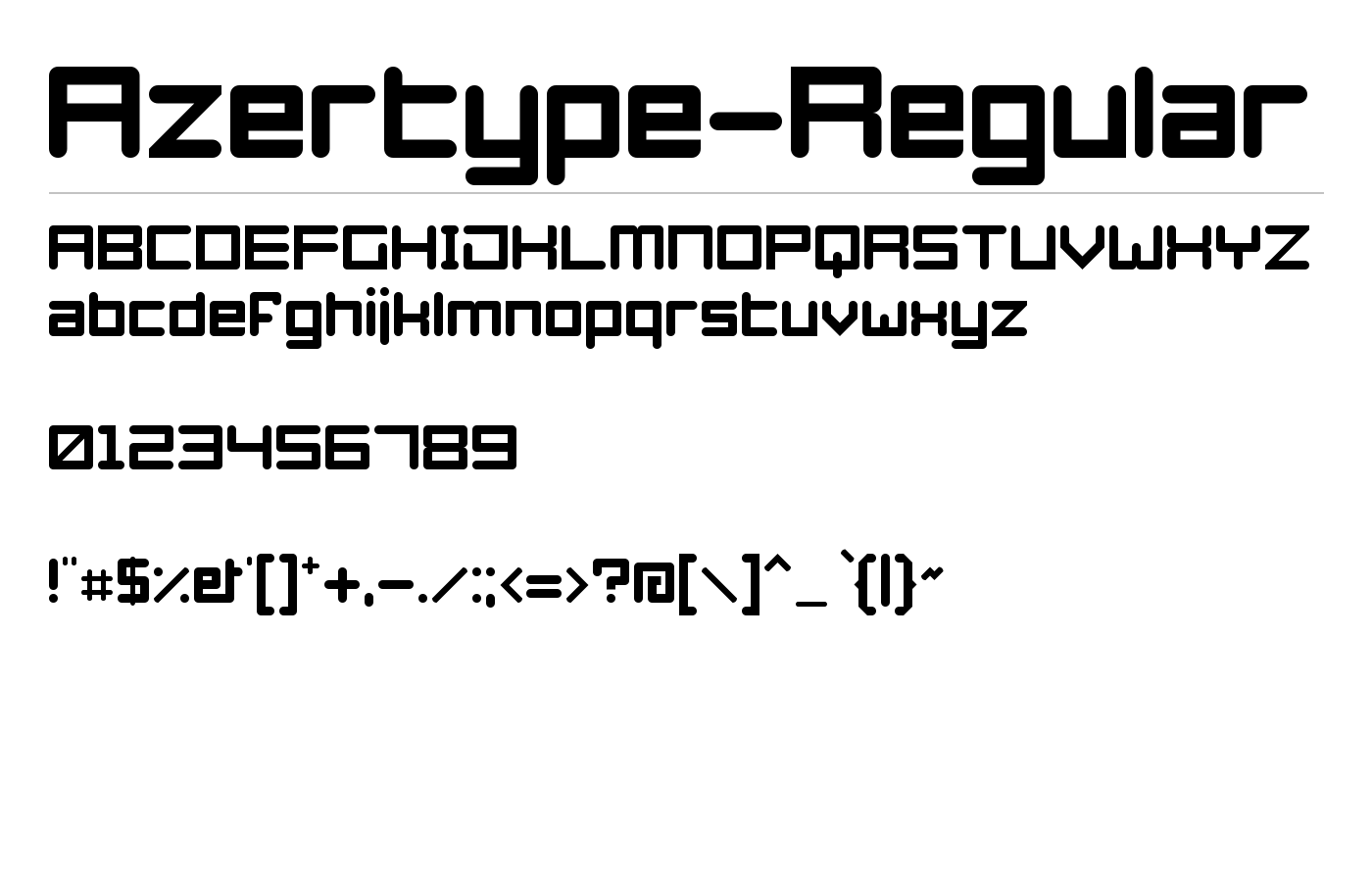
Azertype-Regular is a modern, geometric sans serif font characterized by its bold weight and squared shapes with rounded edges, creating a tech-inspired and futuristic feel. Its clear, uniform letterforms and high x-height ensure excellent readability, making it ideal for digital interfaces, branding, and headlines that seek a contemporary, cutting-edge look. This font works well for projects aiming to communicate innovation, reliability, and clarity in a stylish yet approachable manner.
Azertype-Regular Font
About Azertype-Regular Font